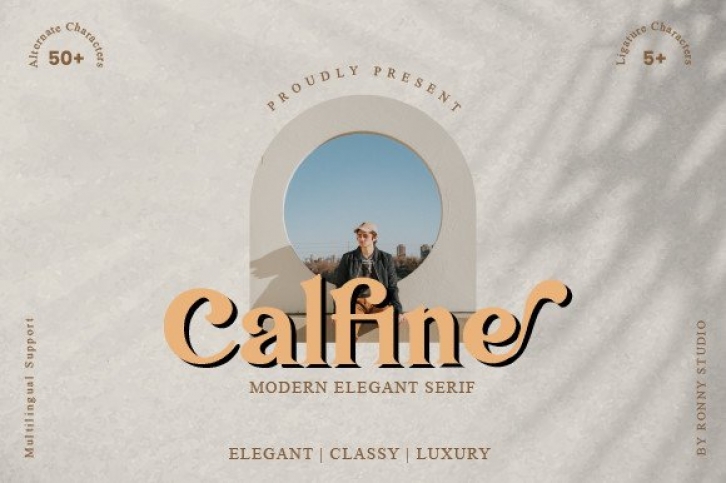
Calfine is a luxurious and beautiful serif font. It looks lovely on a variety of designs requiring a personalized style, such as wedding invitations, thank you cards, weddings, greeting cards, logos and so on.Â